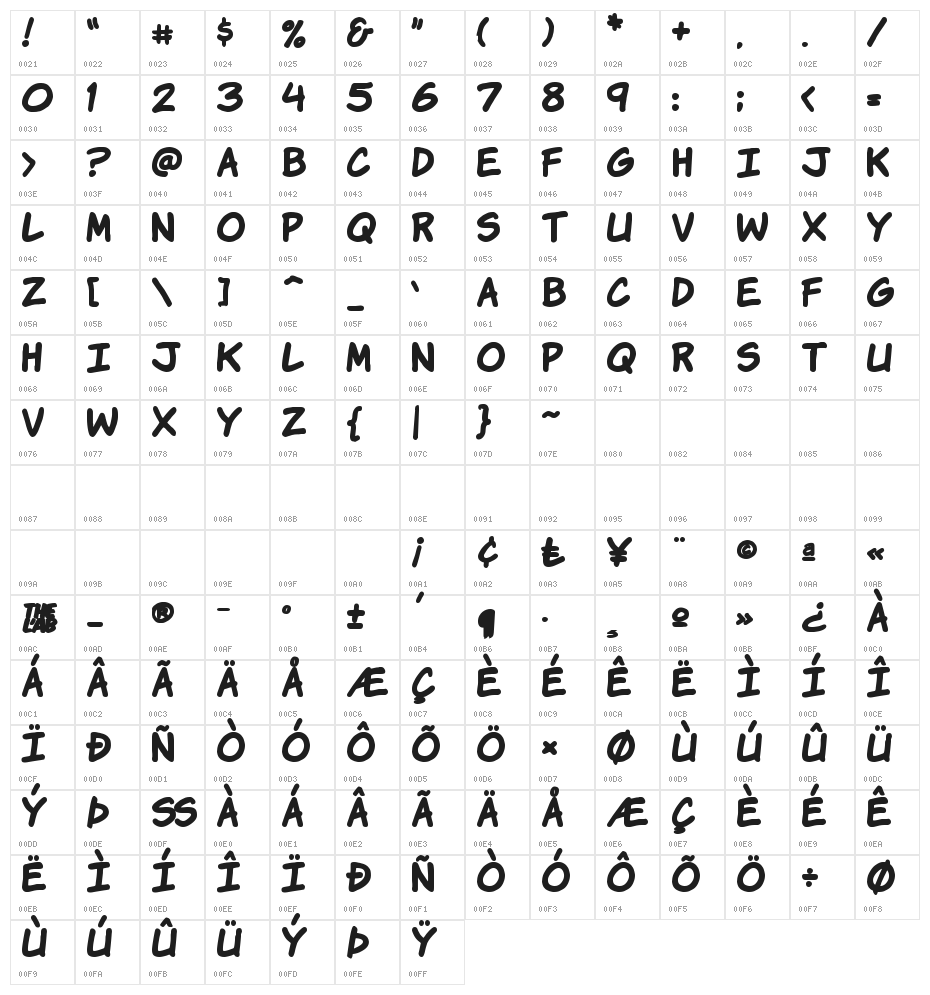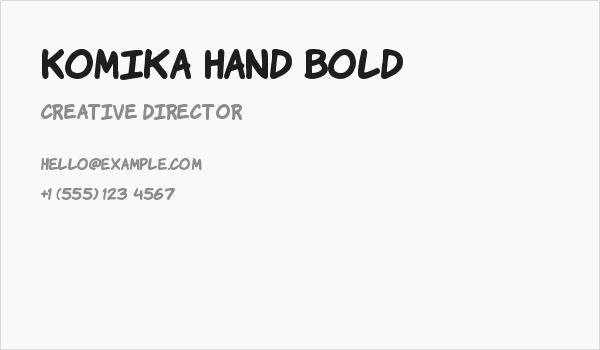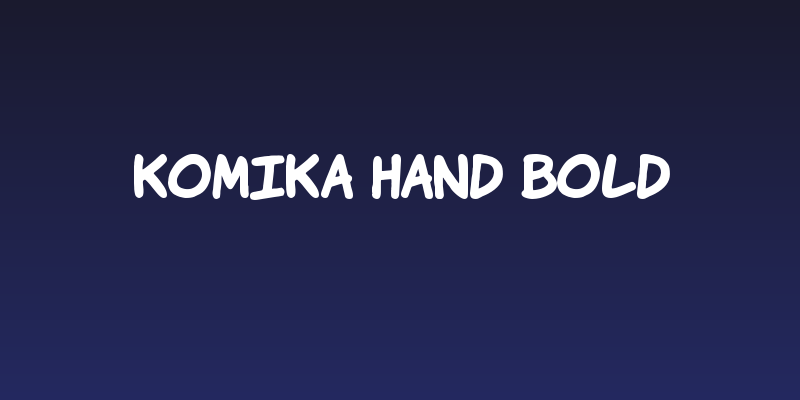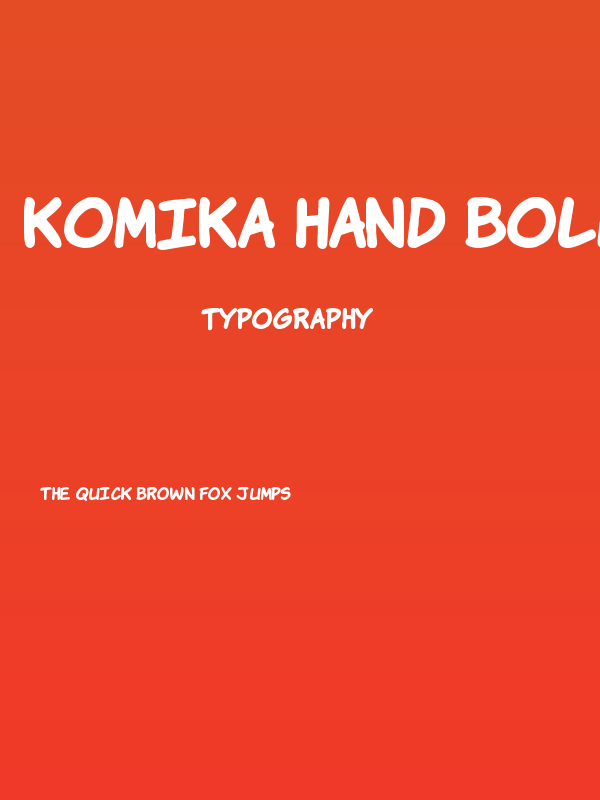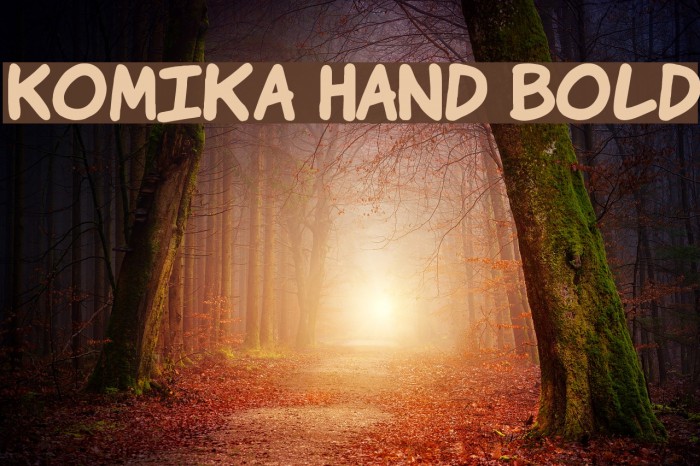
Komika Hand Bold Font
This playful and bold font features a handwritten style with thick, rounded strokes that give it a friendly and approachable appearance. The characters are slightly slanted, adding a dynamic and energetic feel. The uppercase and lowercase letters maintain a consistent style, with smooth curves and a casual flow. The numbers and special characters are equally bold and expressive, making them stand out. This font is perfect for projects that require a fun and informal touch, such as comic books, children's books, or playful branding.
| Overall Style | Playful, Casual |
| Proposed Projects | Comic books, children's books, playful branding, informal posters, and greeting cards. |